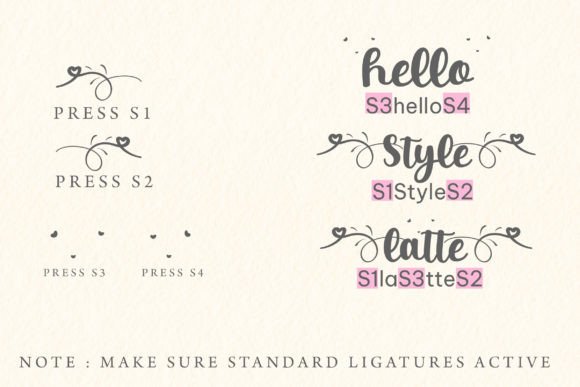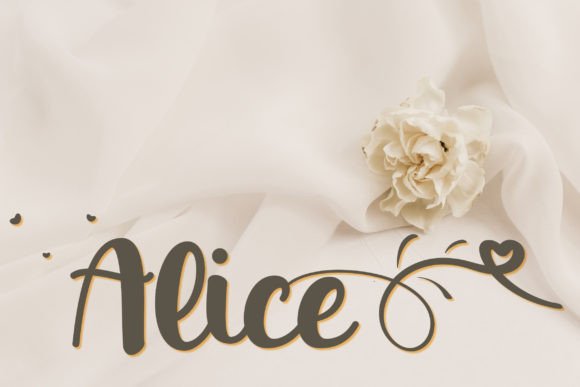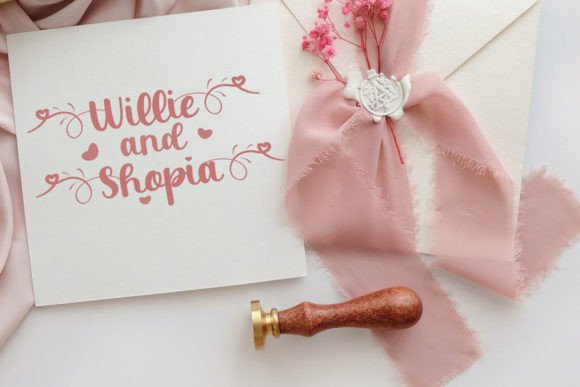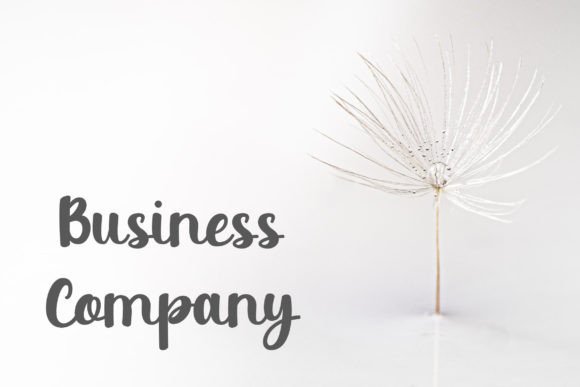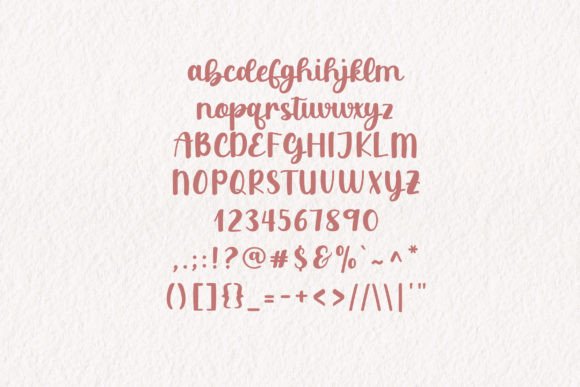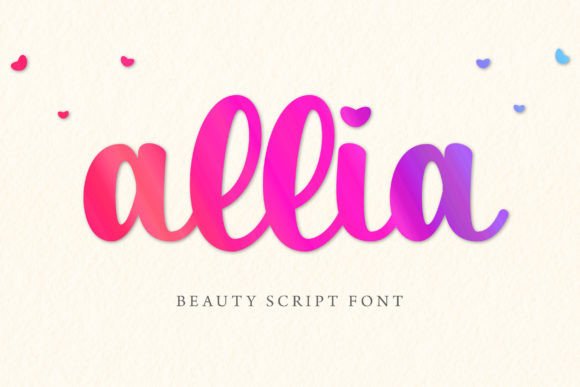
Allia Font
About Allia Font
“Allia” is a simple and cute handwritten font that brings a charming and approachable quality to your creative projects. With its versatile and nicely flowing characters, this font serves as the perfect addition to a wide range of design endeavors. When you incorporate “Allia” into your creative ideas, you’ll see how it effortlessly brings them to life with its lovely and friendly script.
The charm of “Allia” lies in its simplicity and cuteness. Its easygoing letterforms and friendly style create a visually engaging and delightful experience, making it an ideal choice for projects that aim to convey a sense of approachability and charm.
One of the standout qualities of “Allia” is its versatility. Whether you’re using it for branding, crafting greeting cards, designing cheerful posters, enhancing web graphics, or working on various other creative projects, “Allia” integrates seamlessly into your creative vision.
This font’s ability to bring your creative ideas to life is a testament to its versatility and friendly design. Whether you’re working on personal or professional endeavors, “Allia” adds a delightful and approachable touch to your work that resonates with a diverse audience.
In summary, “Allia” is more than just a font; it’s a versatile and cute creative tool that can enhance your projects. Whether you’re a professional designer or someone passionate about crafting and design, “Allia” is here to make your designs shine with its simple and friendly script. Embrace the charm of “Allia,” and watch your creativity flourish with a lovely and approachable style.